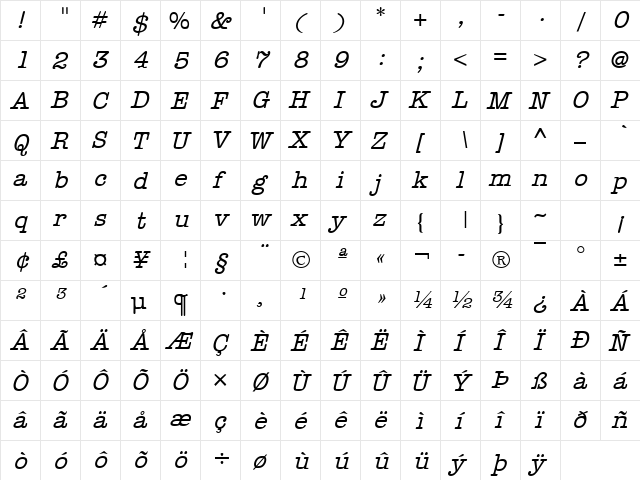
Editor Italic
Design Context for Editor Typeface
Editor is a composed and adaptable typeface that performs quietly and consistently across a wide range of design contexts. Its italic angle brings a sense of urgency and motion to the letterforms.
Pro Tip: Use Editor for emphasis, pull quotes, and subheadings where its slanted energy can add rhythm to the layout.